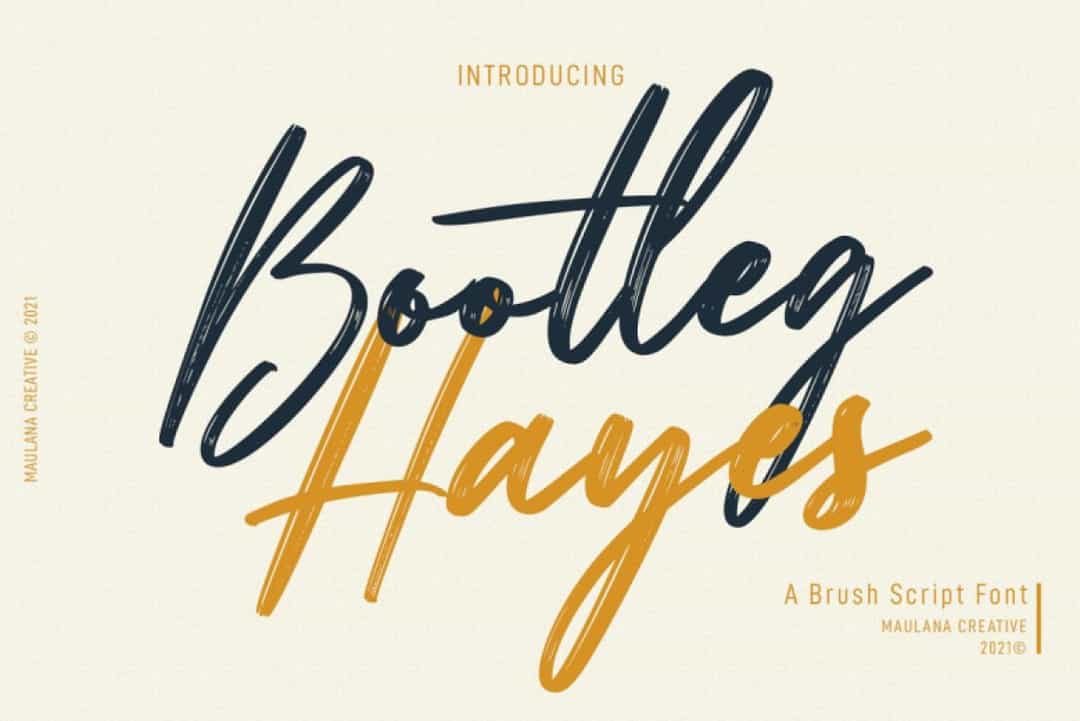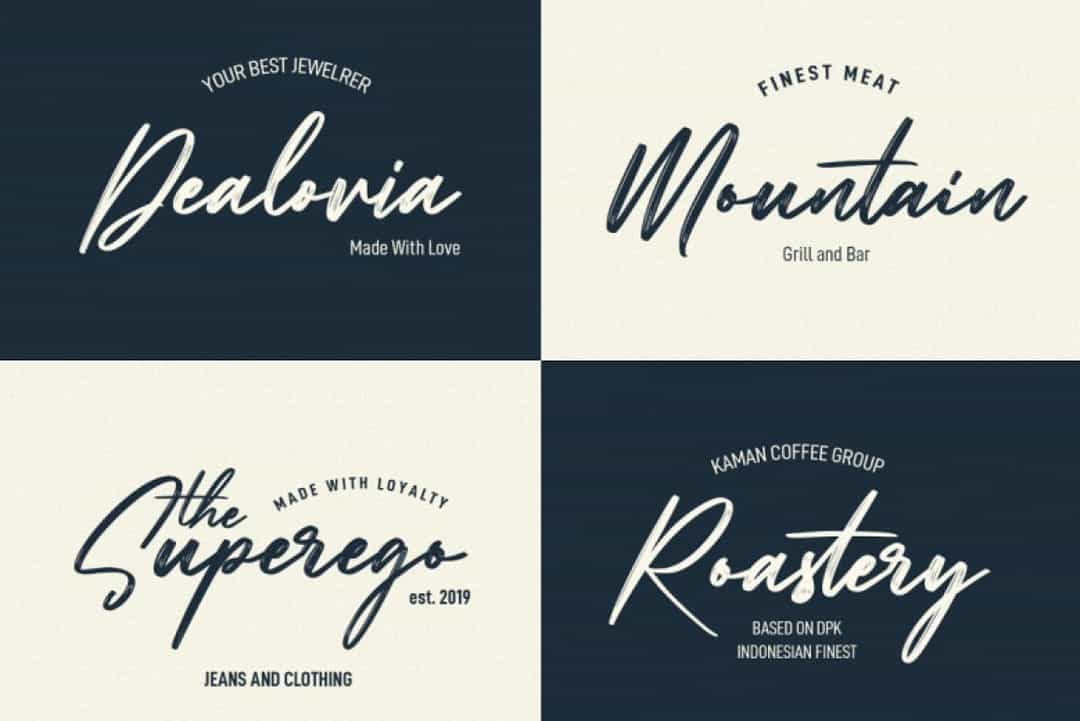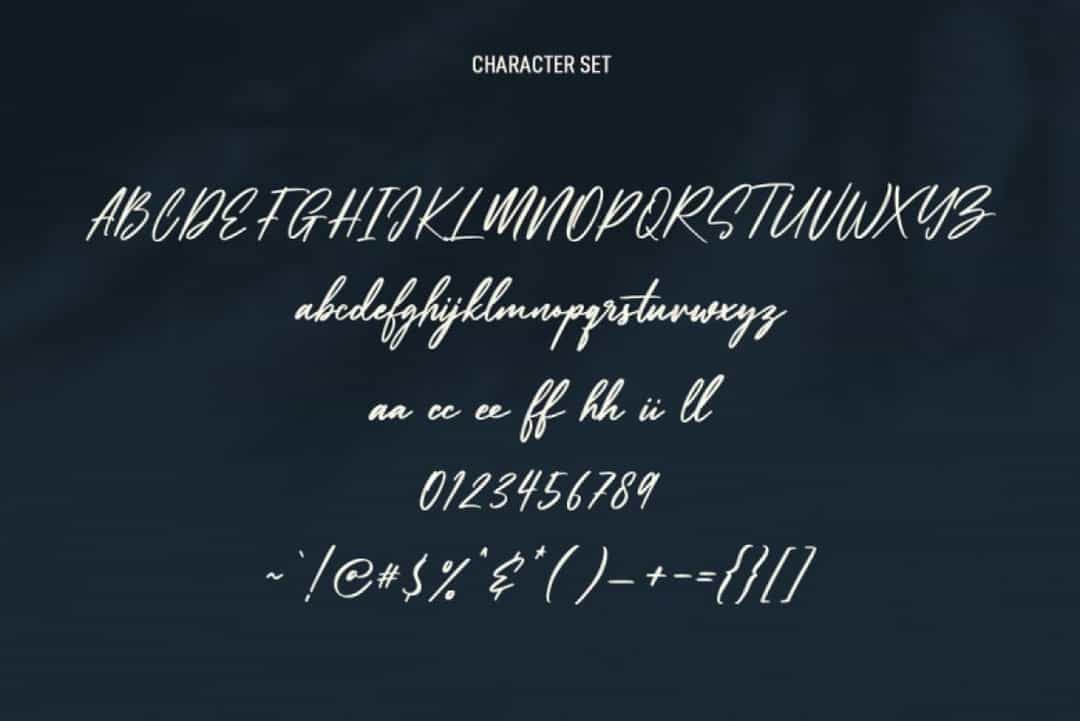
Bootleg Hayes is an elegant brush script font, featuring brush texture strokes, fun, slanted characters and several ligatures that allow for artistic flourishment. Plus it supports more than 100 languages!